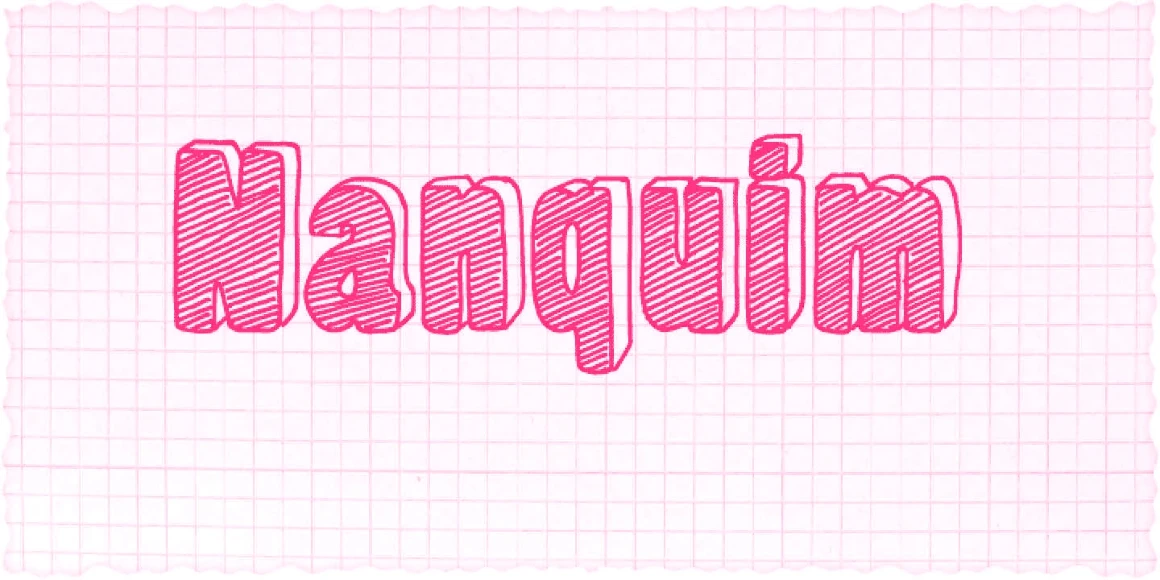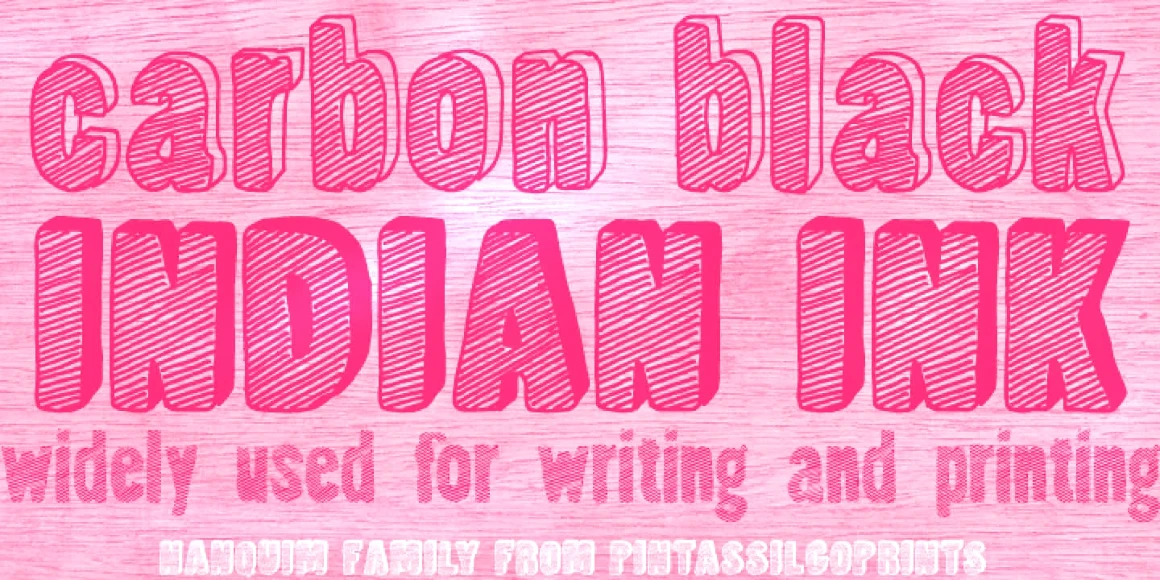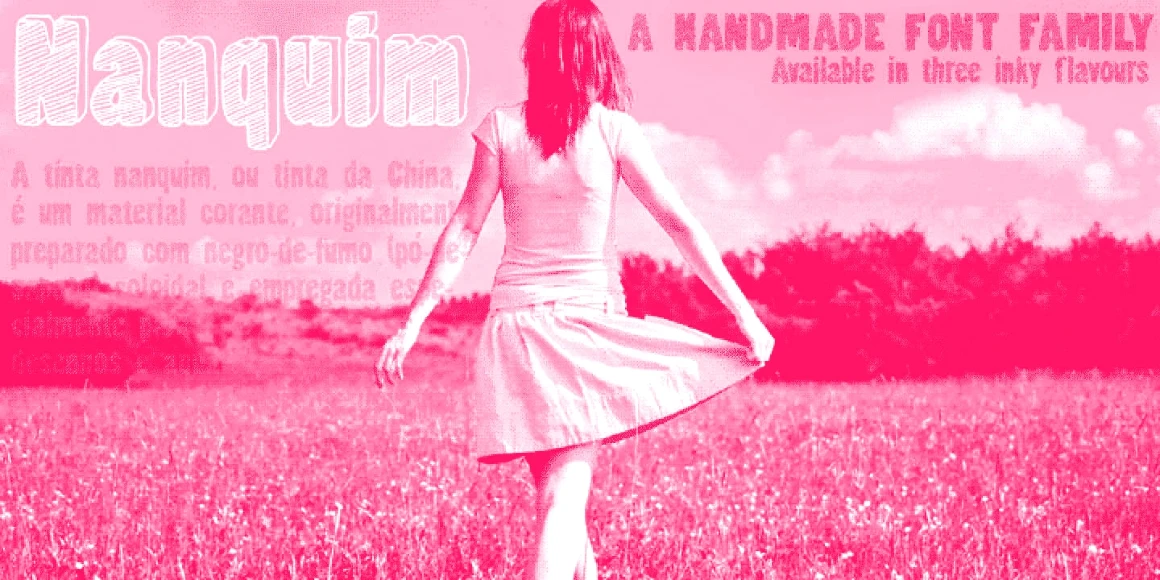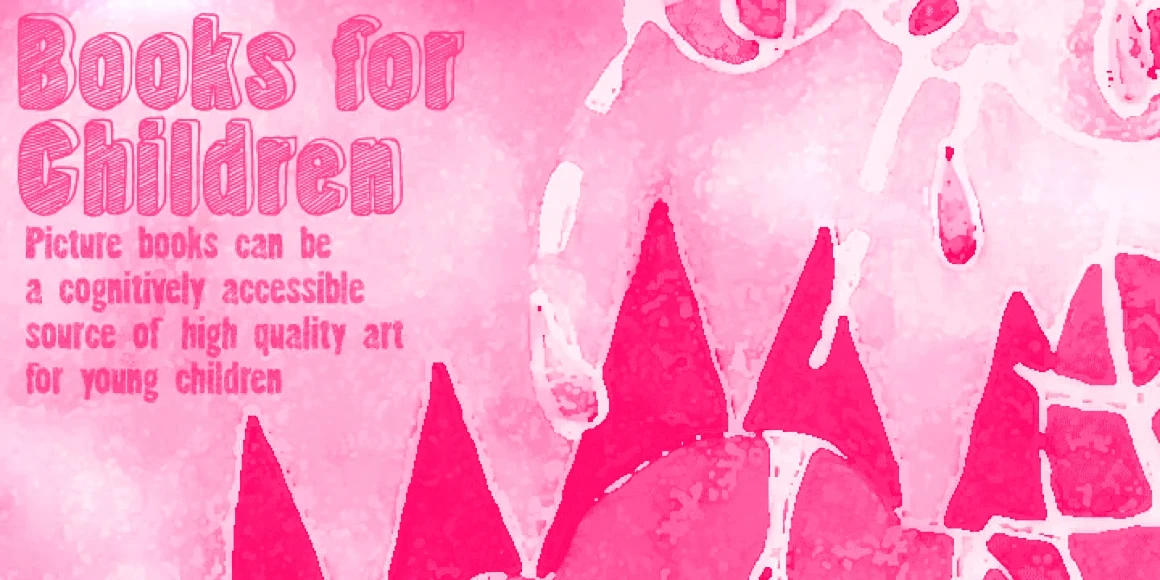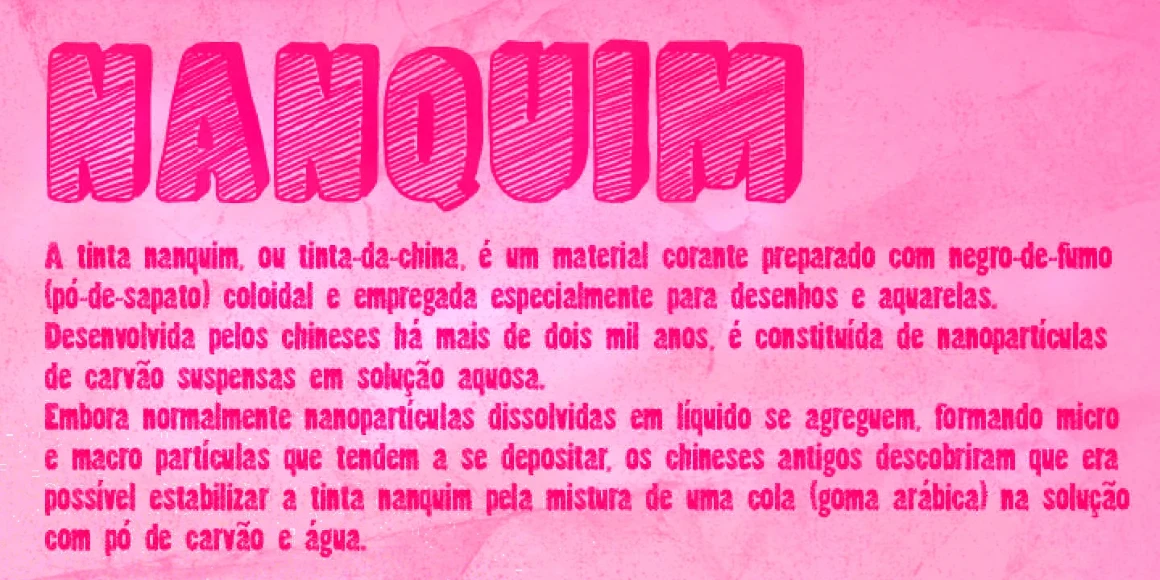
Nanquim
Nanquim Dark
Nanquim Regular
Nanquim Stamp
Nanquim is a textured, high-impact type family with a vivid hand-drawn look. Its bold shapes are filled with intricate strokes, crosshatching, and irregular outlines — capturing the feel of ink on paper. Whether used in large or small quantities, it conveys texture and movement, always with that pleasant, handmade feel. Its expressive, inky character makes it ideal for book covers, posters, magazines, and packaging where a loud voice and handmade aesthetic are key.